34 Best Feminine Script Fonts for Inspiring, Elegant Designs in 2026
Feminine Script Fonts bring warmth, elegance, and personality to everything from wedding invitations to boutique logos. In this curated collection of 34 top picks for 2026, you’ll find romantic calligraphy, playful handwriting, and refined cursive options to match any feminine aesthetic.
Whether you need delicate calligraphy, modern brush scripts, or soft handwritten styles, these typefaces offer versatility and visual charm. Use them for branding, packaging, social posts, and feminine product design to craft cohesive, on-trend looks.
1. Belita Font
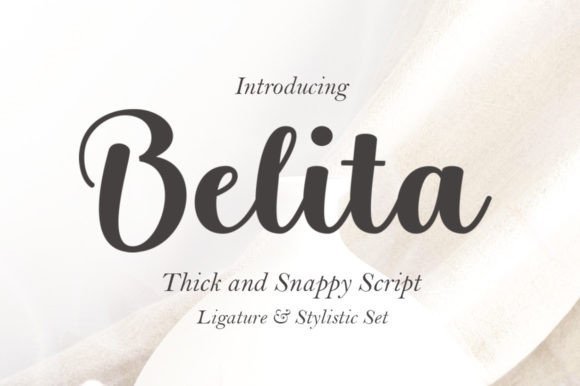
Belita is a modern, graceful script that blends flowing calligraphic strokes with contemporary letterforms. The letter connections feel natural rather than overly governed, so words read clearly at display sizes while still delivering a handmade, luxurious look suited to premium branding and wedding stationery.
Technically, Belita comes in OTF and TTF formats and includes a thoughtful set of alternates and ligatures that let you customize word endings and flourishes without breaking legibility. Its contrast is moderate, which gives it an elegant presence on packaging and social posts without losing readability when used for subheadings or quotes.
Where Belita truly shines is pairing: it pairs beautifully with a restrained geometric sans for modern labels or with a thin serif for editorial invites. The overall voice is polished and feminine in tone, making it a reliable choice for boutique logos, photography watermarks, and event collateral that need a handcrafted yet upscale appearance.
My Recommendation: I reach for Belita when I want a refined handwritten look that still reads cleanly on product packaging or invitation suites. Its alternates let me create unique word endings without overdoing the flourishes. Use it for boutique branding, wedding stationery, and social media headers where elegance and legibility must coexist.
2. Beauty and Love Duo Font – Feminine Script Fonts
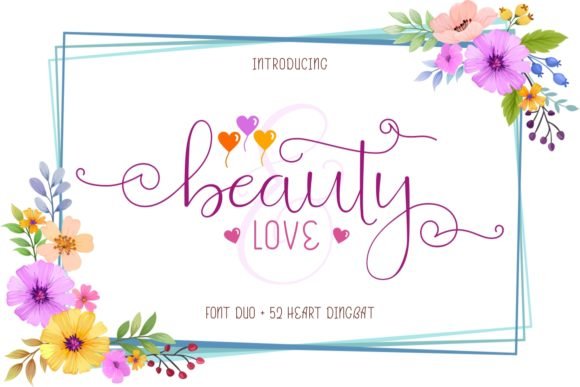
Beauty and Love Duo was designed as a complete romantic toolkit and is a standout among Feminine Script Fonts for its thoughtful three-part system: a flowing script, a playful sans, and a dingbat set of 52 heart symbols. The script is airy and affectionate with plenty of swashes and alternate characters; the sans provides clean contrast, and the dingbats let you add handcrafted heart motifs without extra illustration work.
OpenType features and stylistic alternates make it easy to craft natural-looking word shapes and decorative endings; swapping alternates transforms the tone from delicate to exuberant in moments. Because the sans companion is intentionally charming rather than neutral, it keeps layouts cohesive-perfect for branding and wedding suites where every element should feel unified.
Practical uses include romantic branding, save-the-dates, social media templates, and packaging for beauty or lifestyle products. The dingbat hearts are especially handy for creating pattern fills, stamp-like badges, or tiny repeating motifs on labels, giving designers immediate, on-theme decoration without overhead.
My Recommendation: I would pick Beauty and Love Duo for any project that needs cohesive romantic branding fast-wedding suites, boutique packaging, or influencer templates. The paired sans keeps things readable while the script supplies personality, and the heart dingbats speed up decorative work. It’s a time-saver when you want coordinated, love-forward design elements across print and digital.
3. Marysha Script Font
Marysha Script is a contemporary handwriting font with lively, slightly bouncy letterforms that give compositions an approachable, handcrafted air. The strokes have a smooth rhythm and modest contrast, which keeps longer lines readable and makes the font versatile across invitations, greeting cards, and logo marks.
Built with contextual alternates and a set of ligatures, Marysha mimics natural pen movement so repeated letters don’t look mechanical. Its baseline variation imparts charm and spontaneity-great for editorial pull quotes and social captions that need a friendly, signature-style voice.
For pairing, Marysha works exceptionally well with condensed sans-serifs for modern stationery or with thin serifs for feminine product labels that lean toward boutique elegance. Its personality reads youthful yet refined, making it a solid choice when you want an authentic handwritten identity without sacrificing design polish.
My Recommendation: I use Marysha Script when I want a warm, modern handwritten aesthetic that still feels polished enough for brands. It’s ideal for greeting cards, boutique logos, and lifestyle packaging where a personal touch matters. The alternates and ligatures make it easy to achieve a natural, bespoke look without custom lettering.
Choosing the right Feminine Script Fonts can transform a design from ordinary to memorable, giving projects a distinctive, emotive voice. With these 34 selections for 2026, you have a versatile toolkit of elegant, romantic, and modern scripts to elevate any feminine-focused project.